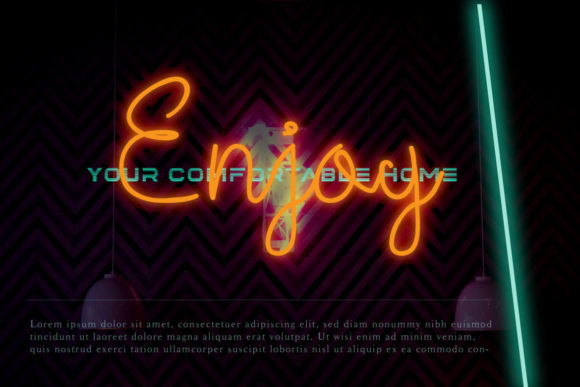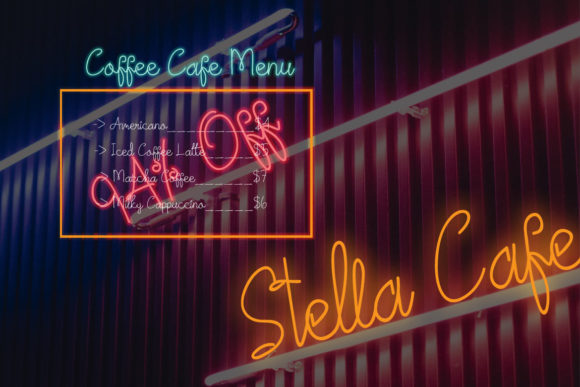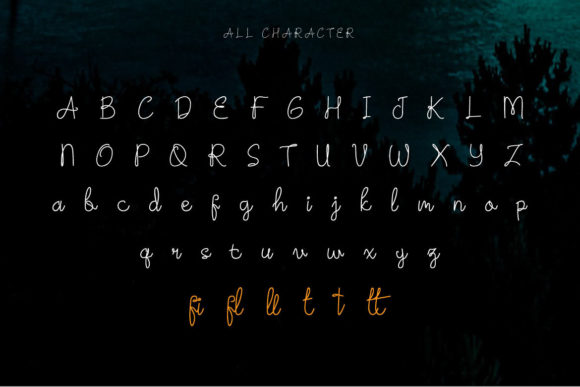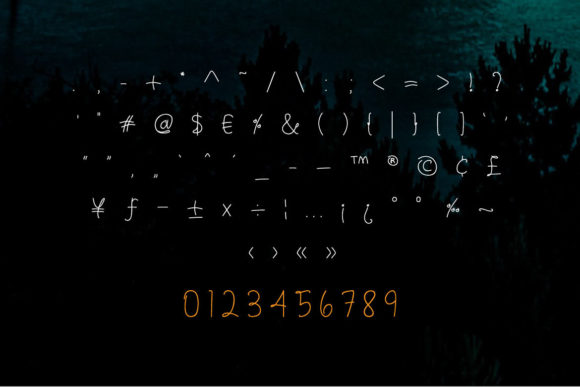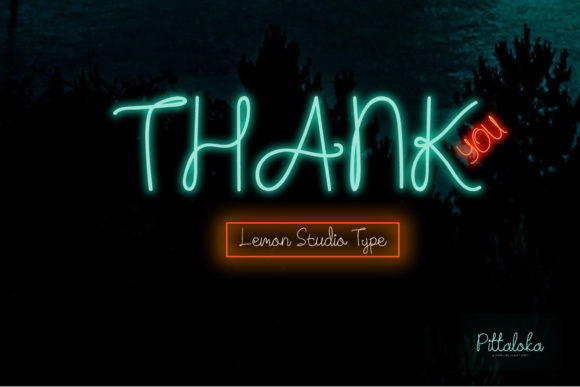
Pittaloka Font
About Pittaloka Font
“Pittaloka” stands as an exceptional handwritten font, elevating your work with its superb elegance and curvaceous lines. Tailored for versatility, this font serves as an excellent choice for product packaging, branding projects, magazine covers, social media content, weddings, or any context where the desire is to express words with sophistication against diverse backgrounds.
The allure of “Pittaloka” lies in its superbly crafted handwritten elements, where every curve and line exudes a sense of refinement. The font’s elegance sets it apart, making it an impactful addition to any design it graces. Its curvy lines contribute to a visual rhythm that captivates the audience, ensuring that your work leaves a lasting impression.
When applied to product packaging, “Pittaloka” transforms the ordinary into the extraordinary. Its elegant and curvy characteristics add a touch of luxury to the packaging design, establishing a premium feel that resonates with consumers. Whether utilized for cosmetics, gourmet products, or any other merchandise, this font imparts a sense of exclusivity and sophistication.
Branding projects benefit from the distinctive sophistication that “Pittaloka” brings to the forefront. It serves as a visual representation of refined taste, making it an ideal choice for businesses that wish to convey a sense of luxury and quality. The handwritten style adds a personalized touch, forging a connection between the brand and its discerning audience.
Magazine covers, with their need for captivating headlines and taglines, find an ideal companion in “Pittaloka.” The font’s elegant curves ensure that the cover text not only stands out but also exudes a sense of style. Its versatility makes it suitable for a wide range of genres, from fashion to lifestyle.
In the realm of social media, where visual impact is crucial, “Pittaloka” shines. Whether incorporated into posts, captions, or stories, this font introduces a level of sophistication that commands attention. Its adaptability makes it suitable for various content, from promotional announcements to lifestyle imagery.
For weddings, a celebration characterized by elegance and beauty, “Pittaloka” adds a refined touch to the visual narrative. Invitations, menus, and other wedding materials benefit from the font’s ability to convey a sense of romance and sophistication, aligning perfectly with the joyous occasion.
In summary, “Pittaloka” transcends its role as a font; it becomes a design element that enhances the visual storytelling of diverse projects. Its superb handwritten style, marked by elegant and curvy lines, makes it an invaluable asset for designers seeking to express words with grace and sophistication, be it on product packaging, branding projects, magazine covers, social media, weddings, or any creative endeavor.